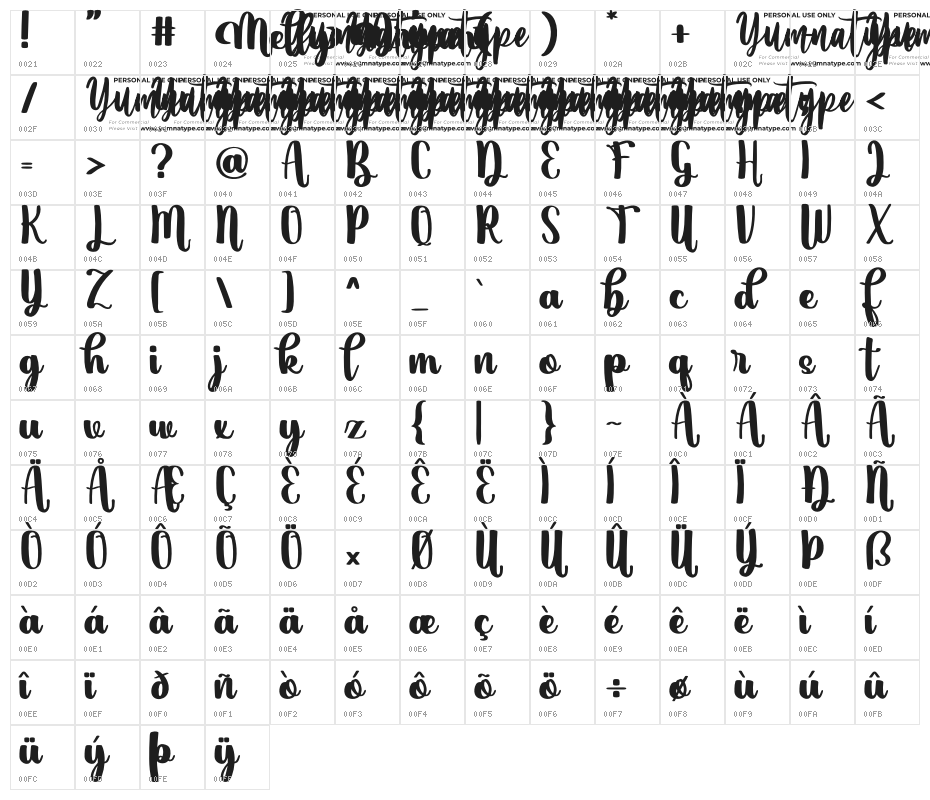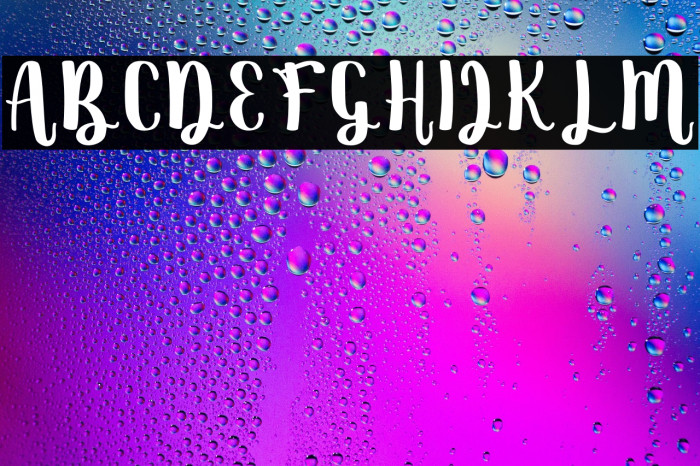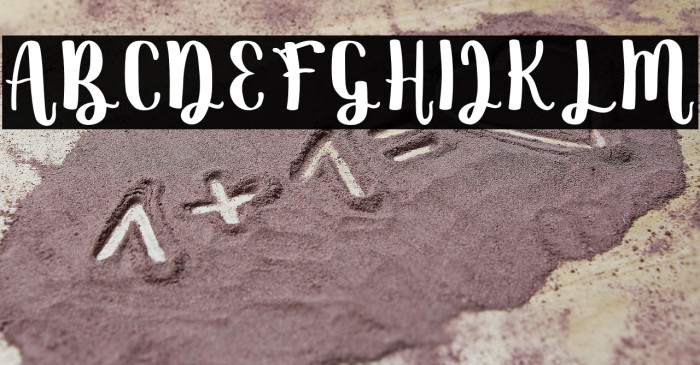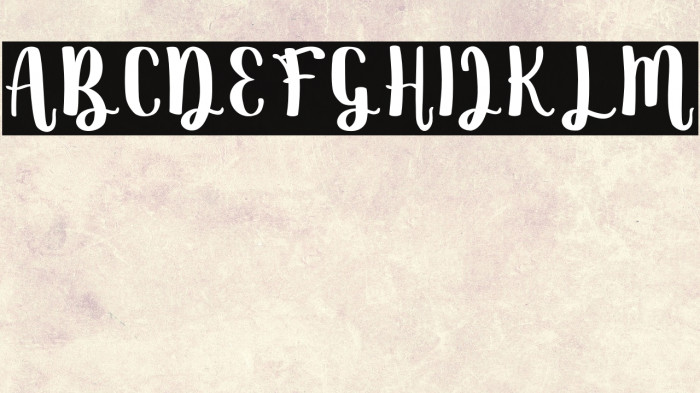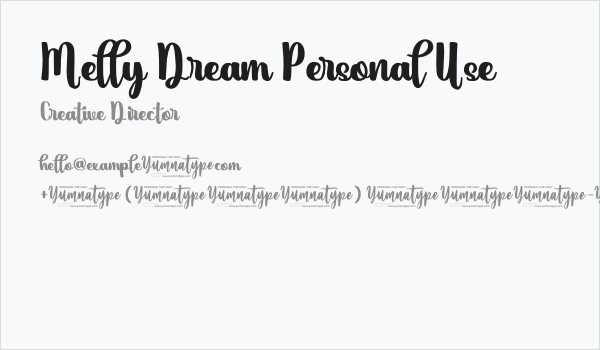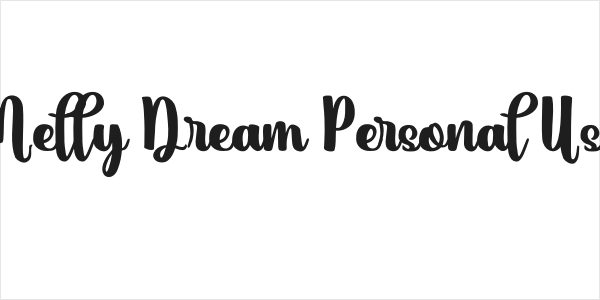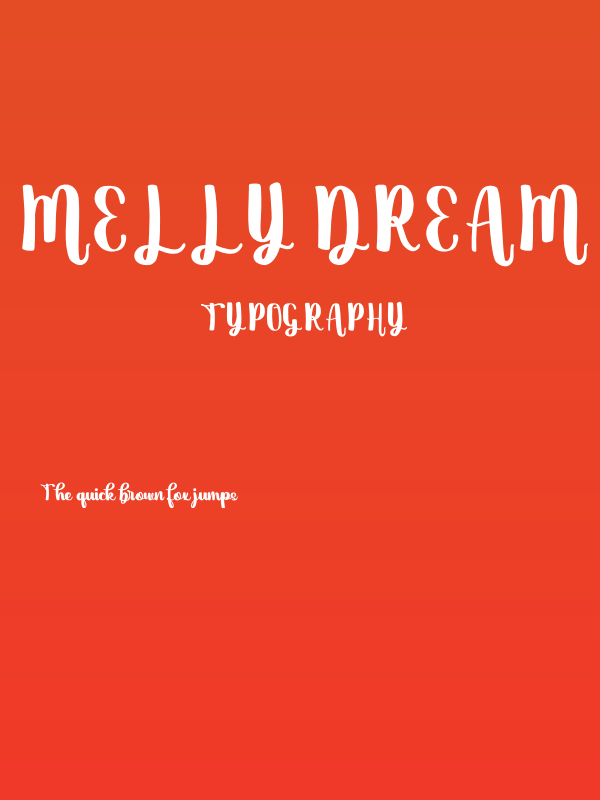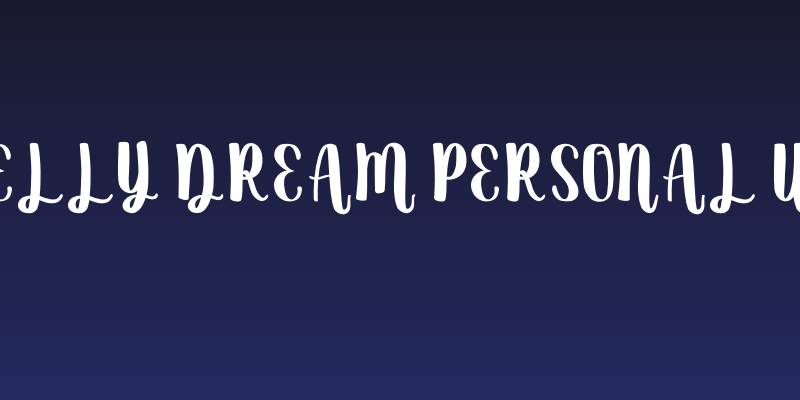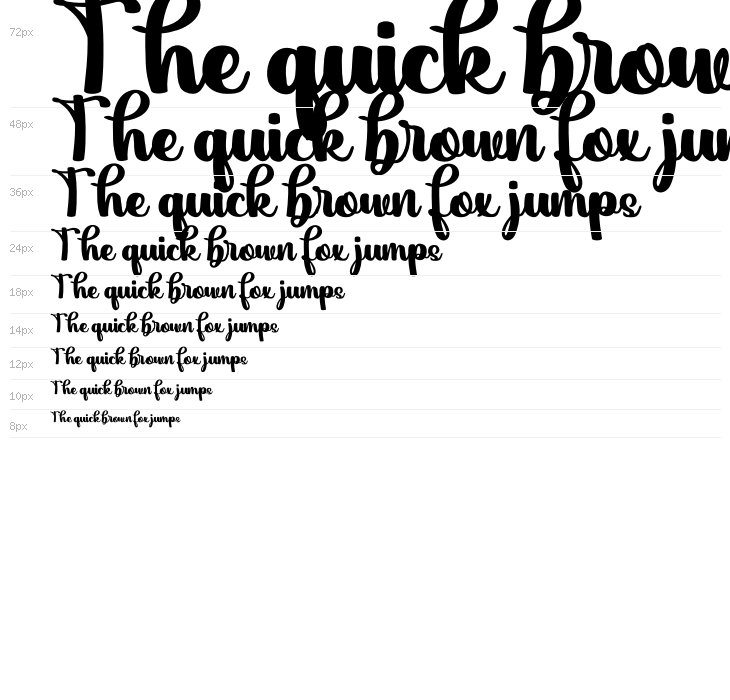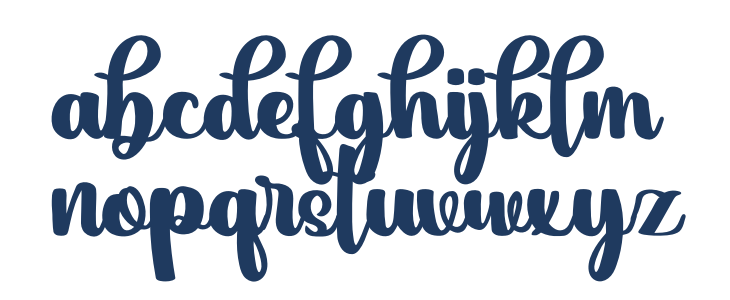
Melly Dream Personal Use Font
Melly Dream Personal Use Description
This font features a playful and whimsical script style, characterized by its bold and flowing letterforms. The uppercase letters exhibit a charming mix of loops and curves, while the lowercase letters maintain a consistent, flowing baseline that enhances readability. The font's strokes are thick and rounded, giving it a friendly and approachable appearance. Its decorative nature is highlighted by the unique flourishes on certain characters, adding a touch of elegance and creativity. The overall design is cohesive, making it suitable for projects that require a personal and artistic touch.
| Proposed Projects | Ideal for greeting cards, invitations, branding projects, and social media graphics. |